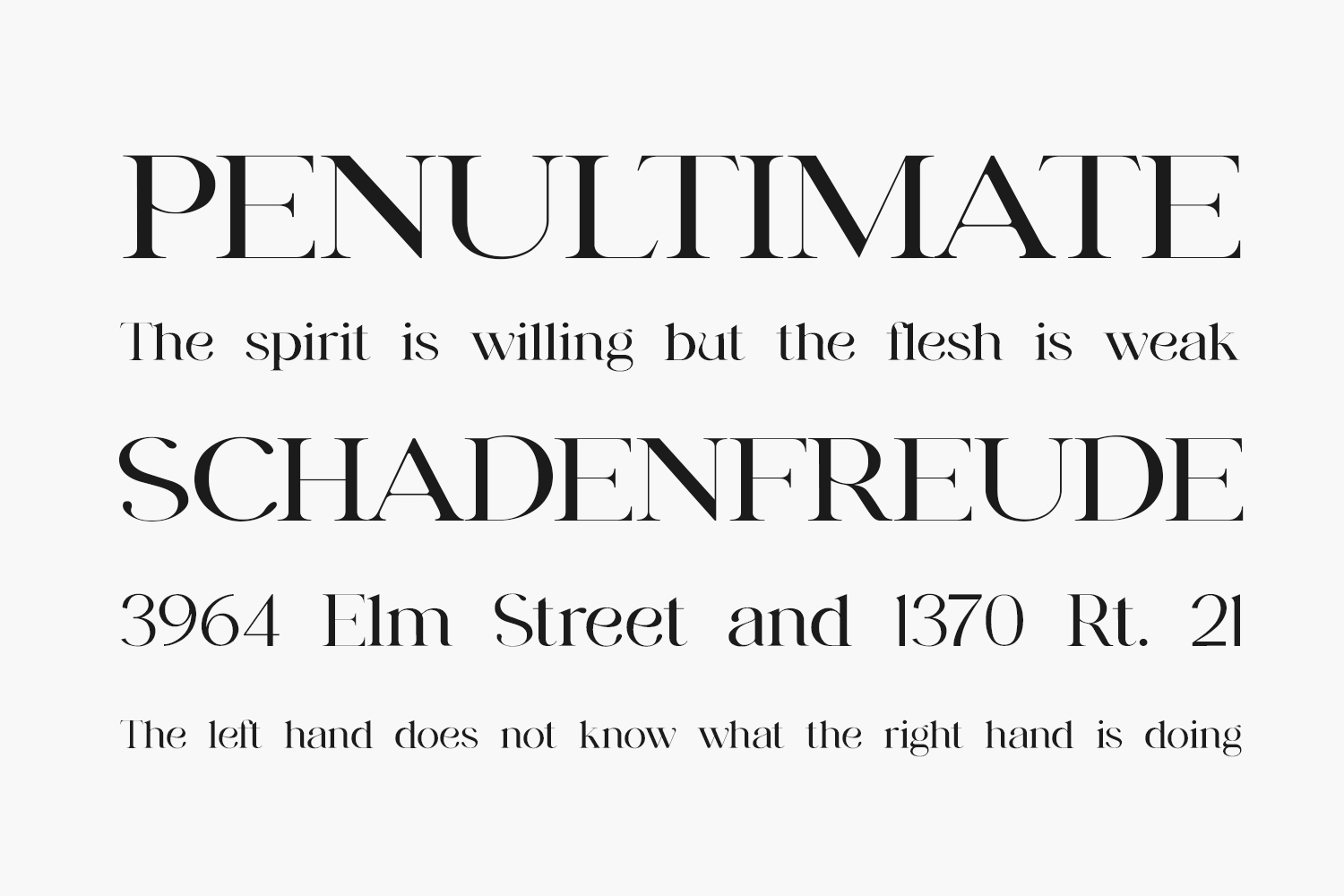
Midwatches Free Font – Stylish Serif for Elegant Typography
Midwatches is a refined and elegant serif font designed by UI Creative to bring timeless beauty and modern clarity to your creative projects. With its smooth curves, strong contrast between thick and thin strokes, and clean structure, this free decorative typeface works perfectly for crafting stylish logos, magazine headers, product packaging, blog titles, and more. Available in TTF format — ideal for designers seeking a professional serif font that blends sophistication with readability.
Why Choose Midwatches?
- Elegant Style: Combines classic serifs with clean lines for a polished, contemporary appearance.
- Ideal for Editorial Design: Perfect for blog headers, book covers, or advertising campaigns needing a refined serif style.
Where to Use Midwatches?
Midwatches shines across a variety of creative applications:
- Logos & Branding: Adds warmth and elegance to brand identities for lifestyle blogs, fashion labels, or artisanal shops.
- Book Covers & Titles: Perfect for novel titles, journals, greeting cards, or quote-based designs needing a sophisticated tone.
- Packaging Design: Brings class to product labels on candles, perfumes, or handmade goods requiring a premium look.
- Social Media Graphics: Creates bold text overlays for Instagram Stories, Pinterest pins, TikTok videos, and YouTube banners.
- Editorial Headers: Stands out in magazine covers, newspaper headlines, and digital banners with a handcrafted appeal.
Design Tips with Midwatches